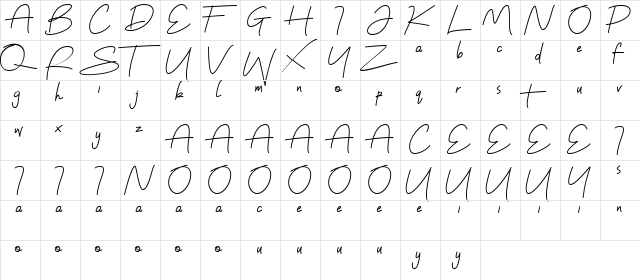
The Sunset Regular
| Foundry | Graphix Line Studio |
| Designer | Ipung |
Design Context for The Sunset Typeface
The Sunset is a composed and adaptable typeface that performs quietly and consistently across a wide range of design contexts.